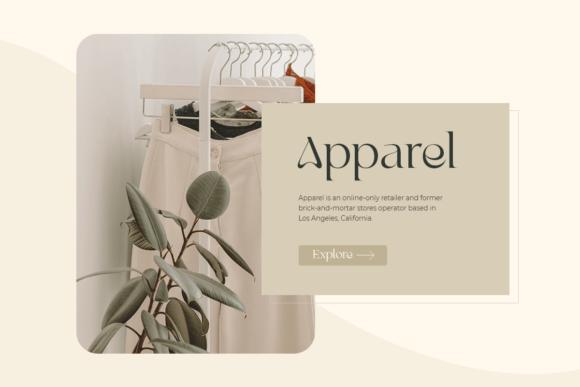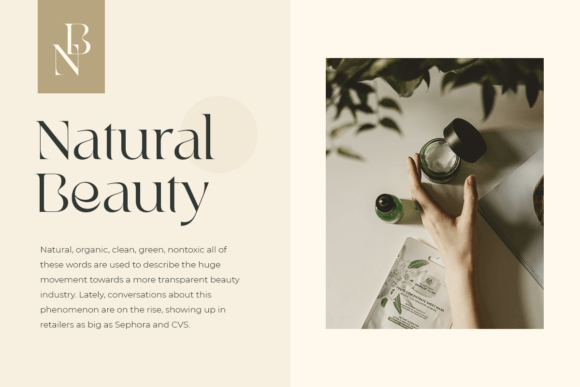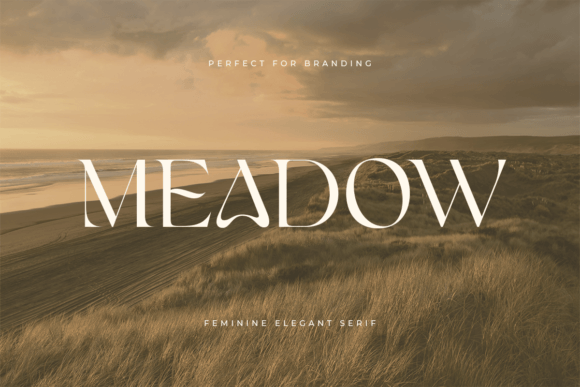
Big Bang Font: Elegant Serif Typography for Modern Logo Design
About the Big Bang Font
Elevate your designs with Big Bang Font, a font that combines sophistication with readability. Big Bang is a beautiful and refined serif font. It has a classy, elegant and modern look that can be used for logos, branding, invitations, stationery, wedding designs, social media posts, and much more!
Big Bang’s elegant serif forms excel in headlines, logos, and short-form text like invitations or social media graphics. Its refined character lends itself well to branding projects requiring a touch of sophistication and modernity. However, its delicate details may become less legible in body text or lengthy paragraphs. Avoid using it for UI elements or applications demanding high readability at small sizes.
Pairing Big Bang with a clean sans-serif like Open Sans for body copy creates a strong visual hierarchy. For a more playful feel, consider a rounded geometric sans-serif such as Circular Std. If a script font is desired for added flair, a simple, non-decorative script like Great Vibes would complement its refined aesthetic without overpowering it.
The overall personality of Big Bang is sophisticated and modern, yet approachable. It projects confidence and elegance, making it ideal for brands aiming for a timeless yet contemporary image.
Big Bang Font Usage Examples
Big Bang Font Example